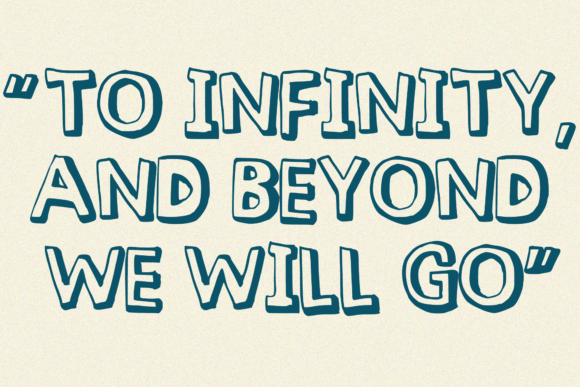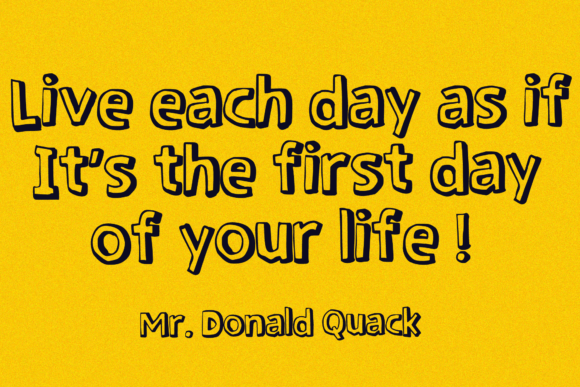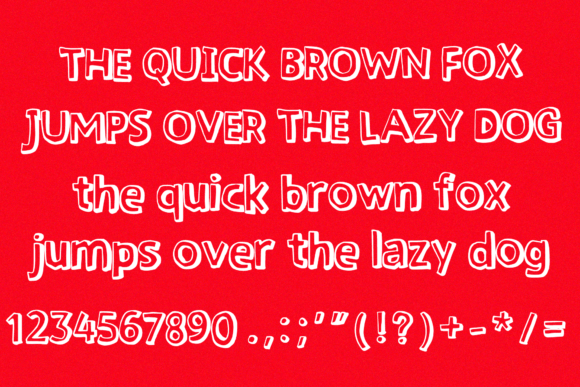
Introducing Arnold & Friends Font: The Ultimate 3D Retro Cartoon Display Font for Designers
Are you looking for a font that can add a fun and playful touch to your designs? Do you want to create something with a ’90s theme that will make your audience nostalgic? Look no further than the Arnold & Friends Font! This 3D retro cartoon display font is perfect for designers who want to elevate their projects to the highest level.
What is Arnold & Friends Font?
Arnold & Friends Font is a unique and creative font that is inspired by the classic cartoons of the 1990s. It features 3D retro-style letters with a fun and playful vibe that will make your designs stand out. The font is designed to be versatile and can be used for a wide range of design projects, from stickers and t-shirt designs to logo designs, magazine covers, and more.
Key Features of Arnold & Friends Font
- Fun and playful 3D retro cartoon display font: The Arnold & Friends Font features bold and colorful letters with a 3D effect that will add a cool touch to your designs.
- ’90s theme: If you’re looking to create something with a ’90s theme, this font is perfect for you. It’s inspired by the classic cartoons of the decade and will make your audience nostalgic.
- Versatile: The Arnold & Friends Font can be used for a wide range of design projects, including stickers, t-shirt designs, logo designs, magazine covers, comics, cartoon drawings, and more.
- Easily customizable: The font is easy to customize, so you can adjust it to fit your design needs.
Design Ideas with Arnold & Friends Font
The Arnold & Friends Font is perfect for a variety of design projects. Here are some ideas to get you started:
- Stickers: Create fun and colorful stickers with the Arnold & Friends Font that will appeal to kids and adults alike.
- T-shirt designs: Design eye-catching t-shirts with this font that will make a statement.
- Logo designs: Use the Arnold & Friends Font to create amazing logo designs for your business or brand.
- Magazine or book covers: Create a stunning magazine or book cover with this font that will grab attention.
- Comics and cartoon drawings: The Arnold & Friends Font is perfect for comics and cartoon drawings, adding a fun and playful touch to your artwork.
Why Choose Arnold & Friends Font?
There are many fonts available online, but the Arnold & Friends Font stands out from the rest. Here are some reasons why:
- Unique and creative: The Arnold & Friends Font is a one-of-a-kind font that will make your designs stand out.
- High-quality: The font is designed with high-quality and precision, ensuring that it looks great in any design.
The Arnold & Friends Font is a fun and playful 3D retro cartoon display font that is perfect for designers who want to add a cool touch to their designs. With its ’90s theme and versatile design, it’s ideal for a wide range of design projects, from stickers and t-shirt designs to logo designs and magazine covers. Whether you’re a professional designer or a crafter, this font is a great addition to your collection.